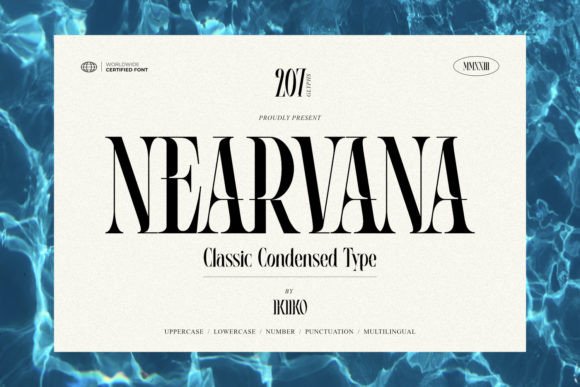
Dive into the realm of Nearvana, a classic condensed serif font that exudes nostalgia and authenticity. Inspired by the iconic logotype of the legendary band Nirvana, Nearvana embodies a timeless, masculine, and elegant aura. Its thin forms and sharp lines create a visually striking presence, perfect for crafting an unforgettable brand identity.
With its unique decorative style, Nearvana effortlessly blends simplicity with a distinctive character. This font is a true gem for creating classy and sophisticated designs that speak to the heart. Whether you're working on a luxury brand's visual identity, crafting a captivating magazine layout, or designing a fashion lookbook that oozes elegance, Nearvana is your perfect companion.
Imagine your designs adorned with Nearvana's timeless beauty – book covers that transport readers to a bygone era, posters that command attention with their bold presence, and packaging that exudes a touch of nostalgia. Nearvana's versatility extends to food & beverages, where it adds a touch of sophistication to menus and labels.
But Nearvana's charm doesn't stop there. It's also a stunning choice for quotes, adding a touch of elegance to any text overlay. Its ability to seamlessly blend with background images makes it a versatile tool for creating captivating social media posts, website banners, and marketing materials that leave a lasting impression.
With Nearvana in your creative arsenal, you'll have the power to evoke emotions, create a sense of nostalgia, and establish a brand identity that stands the test of time. Embrace the allure of Nearvana and watch your designs transform into masterpieces of elegance and authenticity.